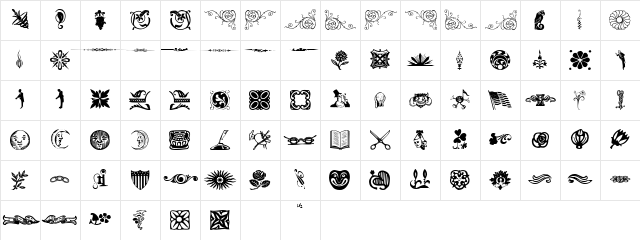
DavysDingbats1 Regular
Design Context for DavysDingbats1
DavysDingbats1 is a composed and adaptable typeface that performs quietly and consistently across a wide range of design contexts.